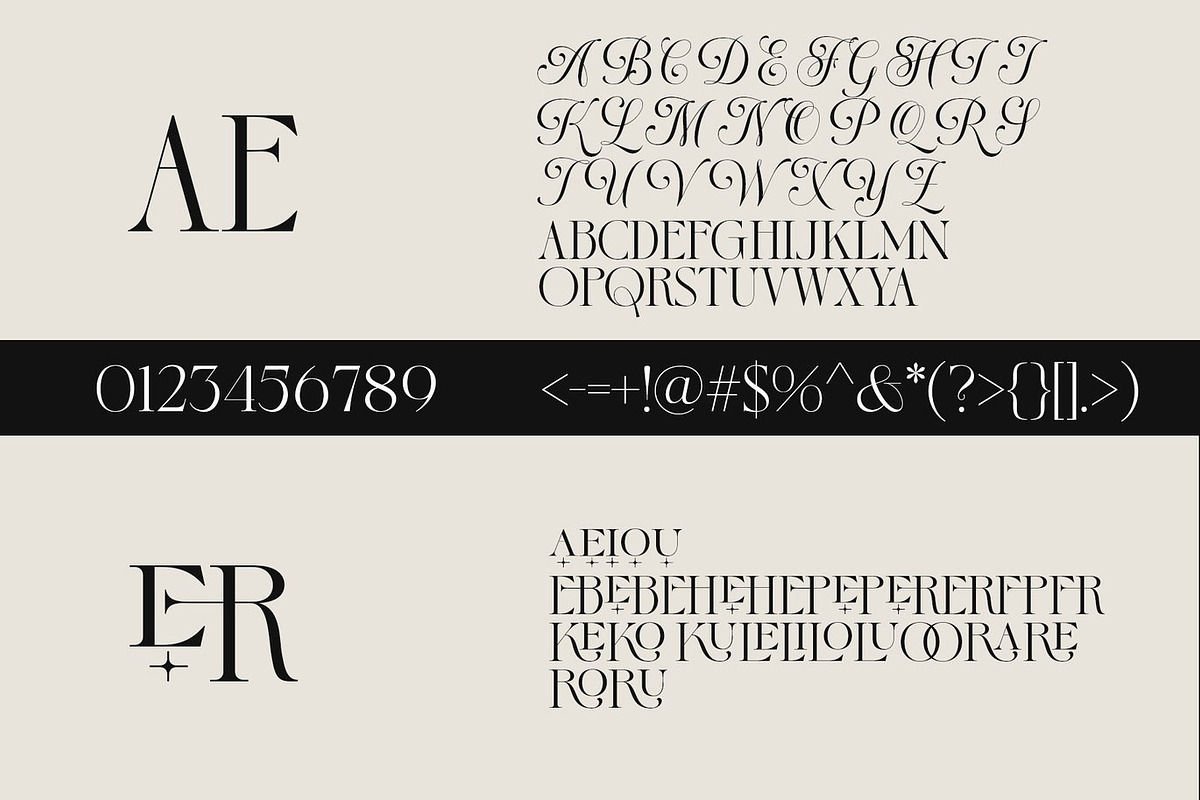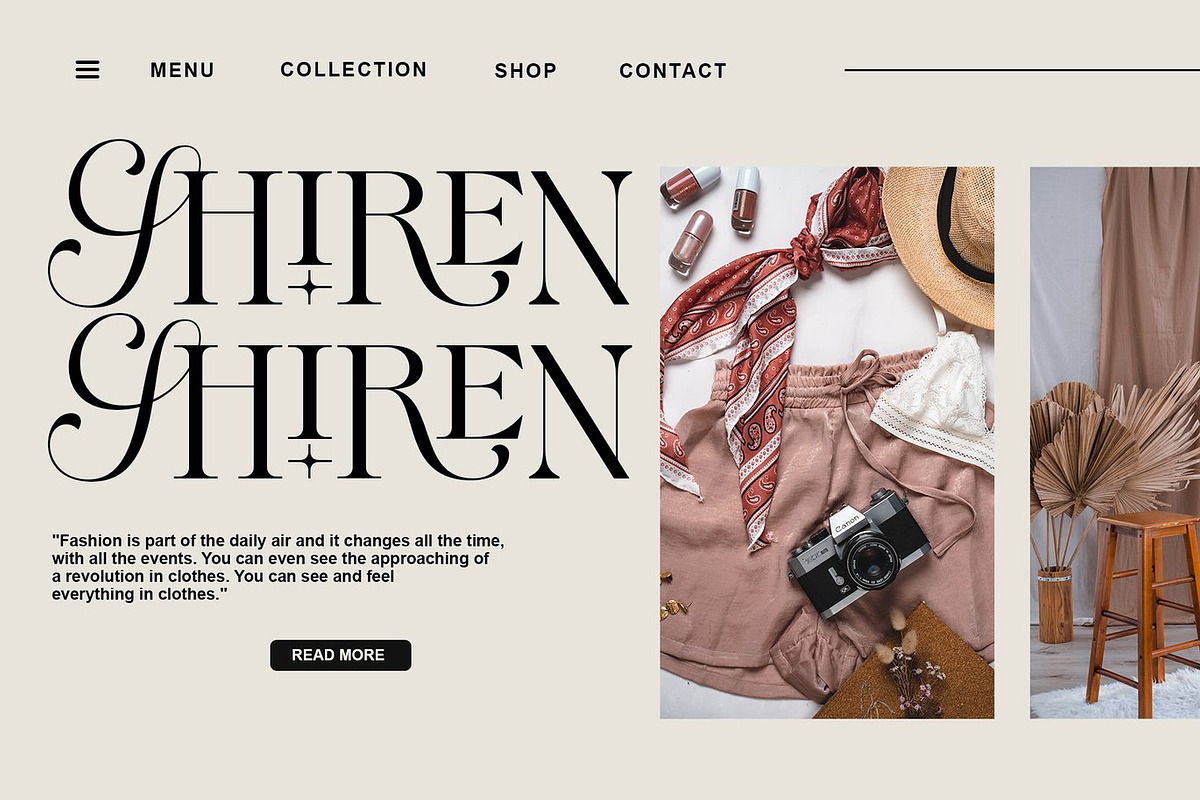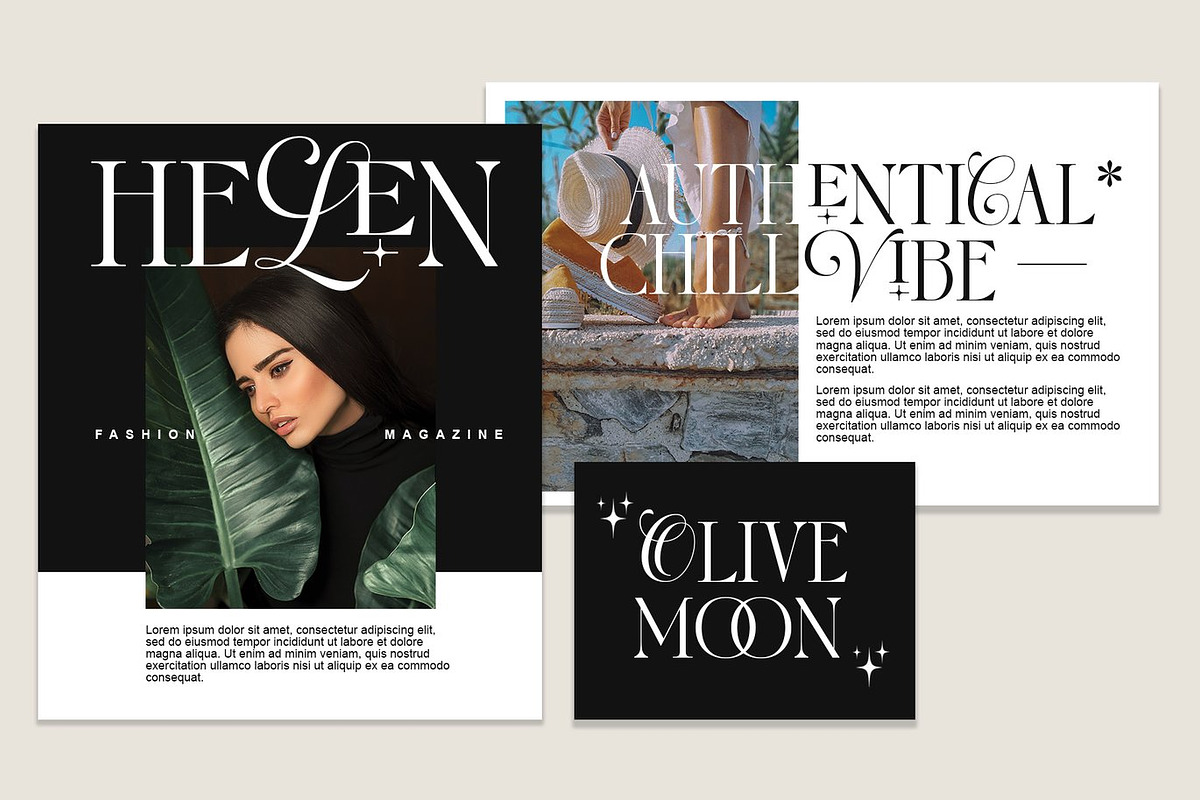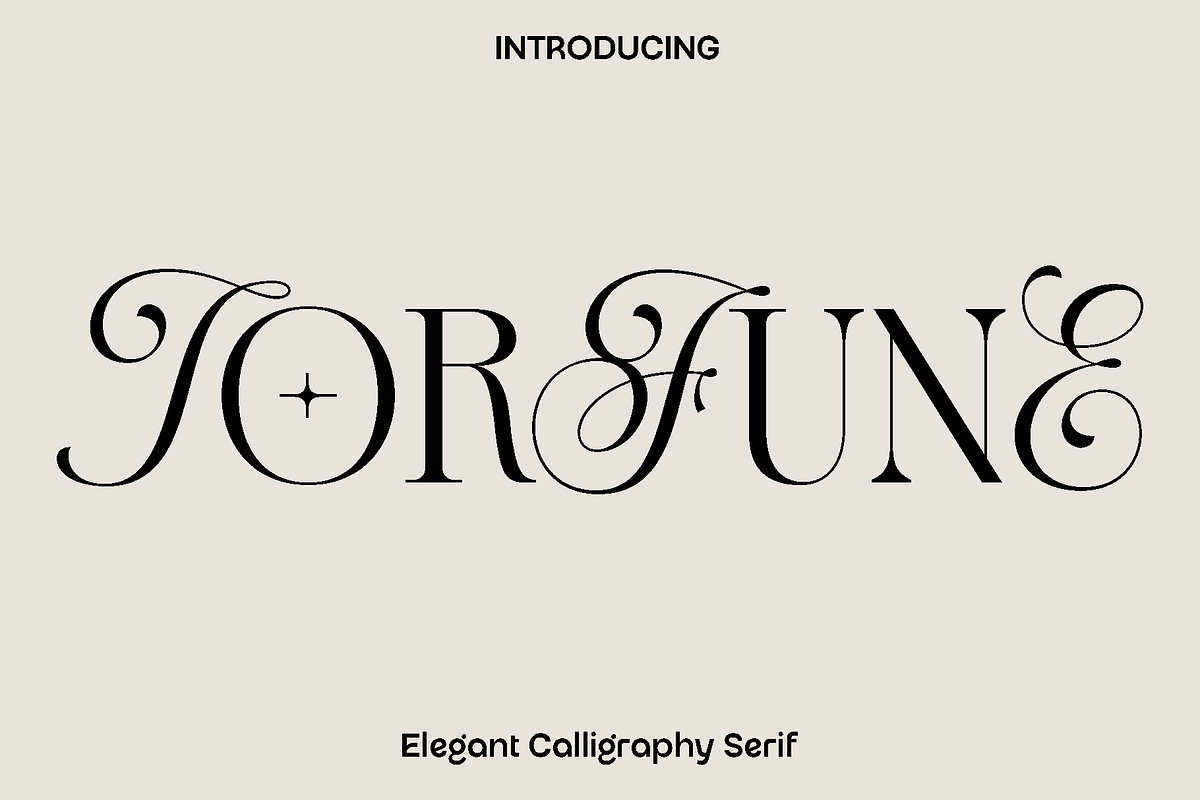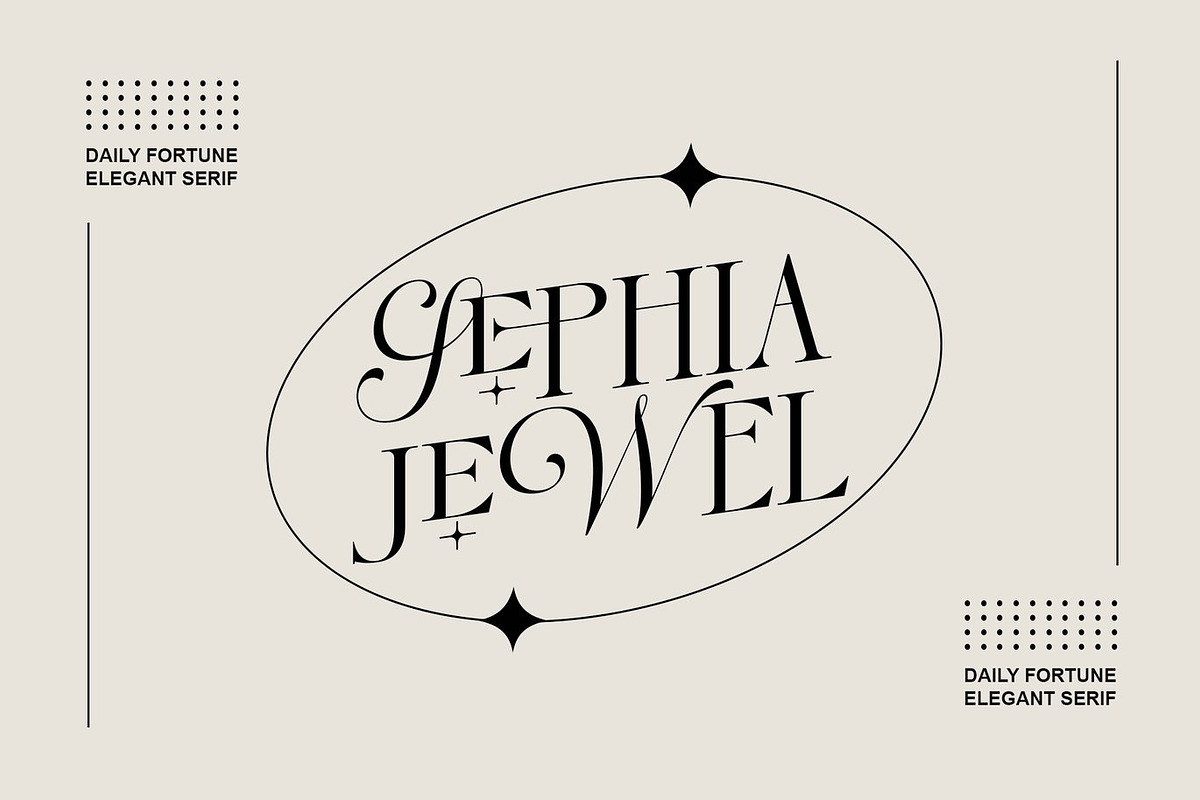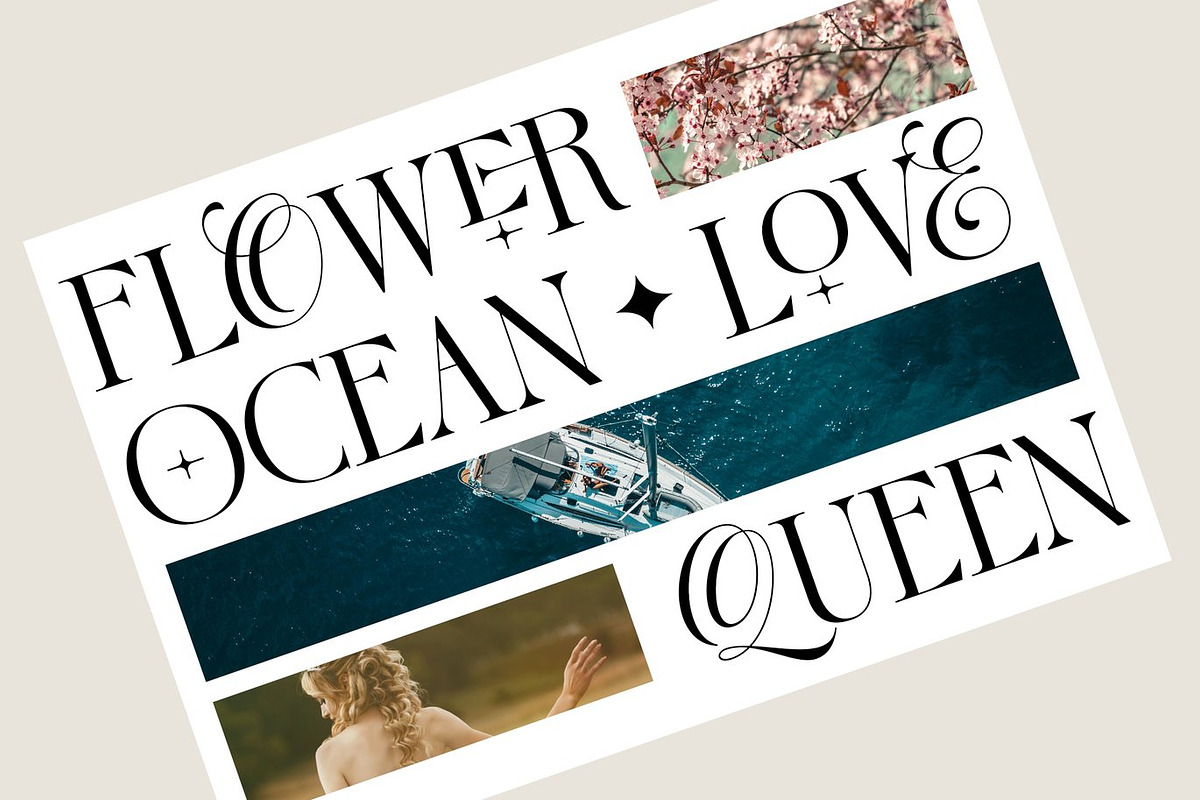
Torfune - Elegant Calligraphy Serif
Torfune is a stylish and versatile display font designed to bring character and elegance to modern creative projects. Crafted with balanced proportions and carefully shaped letterforms, Torfune delivers a refined look that feels both contemporary and timeless. The design focuses on clarity and personality, allowing every word to appear visually engaging while remaining easy to read.
Inspired by modern editorial typography and creative branding trends, Torfune shines in projects that require both sophistication and flexibility. It works beautifully for books, magazines, logos, branding, photography overlays, inspirational quotes, blog headers, posters, and advertising materials. Whether used in bold headlines or elegant compositions, Torfune enhances the visual identity of your design with a confident and polished appearance.
Torfune is designed to give designers creative freedom. With its alternates and ligatures, you can create unique typographic combinations that add personality and style to your layouts. The balanced structure allows it to perform well in both digital and print applications, making it a reliable choice for professional design work.
From branding projects to editorial layouts and promotional graphics, Torfune provides a modern typographic voice that helps your designs stand out with clarity and charm. It is a perfect addition to any designer’s collection for creating memorable and visually appealing typography.
Torfune Font Features:
• Uppercase and lowercase characters
• Numerals and functional punctuation
• Ligatures and alternate characters
• Multilingual support
• OpenType features